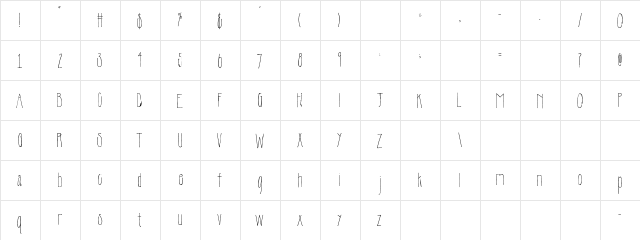
Design Context for SBC Skinny Dip Typeface
SBC Skinny Dip is a composed and adaptable typeface that performs quietly and consistently across a wide range of design contexts.
Pro Tip: Pair SBC Skinny Dip with a font of contrasting weight or personality to build a more expressive typographic hierarchy.